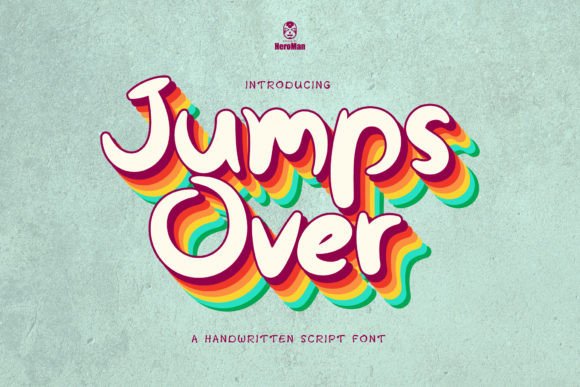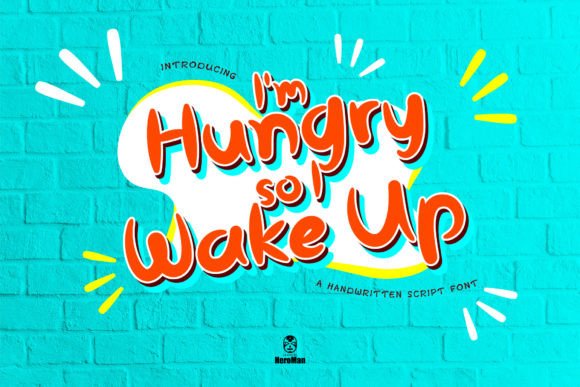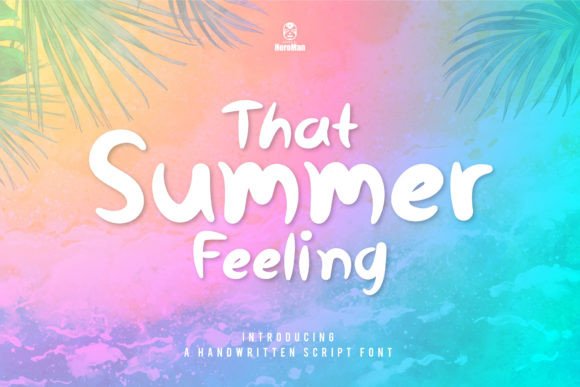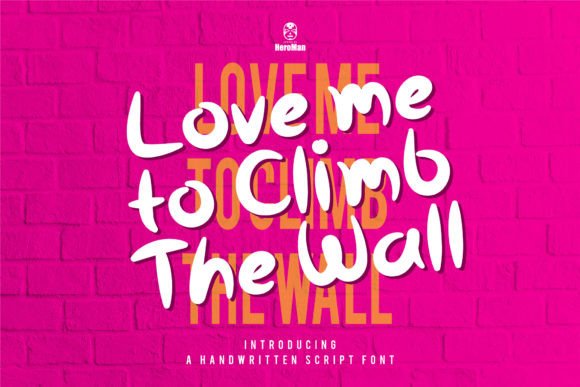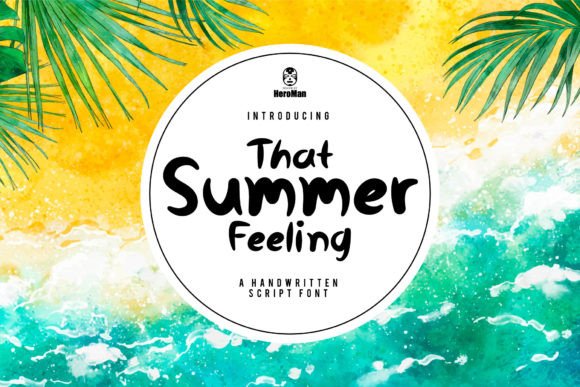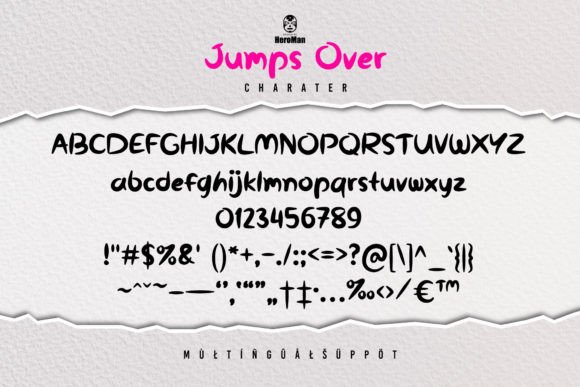
Introduction to Jumps over Font
Remember that moment when you finally found the perfect design element to elevate your creative project? The one that made everything fall into place and gave it that extra oomph? For designers, finding the right font can be a game-changer, and that’s exactly what Jumps over Font is all about.
With its authentic, handwritten look, this font adds a personal and realistic touch to any design. Whether you’re working on a freelance project or a personal passion project, Jumps over Font is a valuable resource that can help bring your vision to life.
Key Features of Jumps over Font
- High-quality, creative font design suitable for various design projects, including logos, branding, and advertising materials.
- Translucent background, allowing for easy integration with various design elements and backgrounds.
- Includes a comprehensive set of glyphs, ensuring effective communication and clarity in creative projects.
- Designed to be highly legible, making it an ideal choice for both digital and print-based design applications.
Honest Review: Jumps over Font
I recently stumbled upon Jumps over Font and I must say it’s been a great addition to my design arsenal. As a designer, I’m always on the lookout for high-quality fonts that can elevate my creative projects.
The font has a unique and quirky design that makes it perfect for eye-catching headings and titles. The transparent background feature allows for seamless integration with any design resource, making it a versatile choice for designers.
- ✨ Unique and quirky design that stands out from the crowd
- ✨ High-quality font that’s perfect for creative projects
- ✨ Transparent background feature for easy integration
- ⚠️ Limited font styles and variations, which might limit its use in more complex designs
- ⚠️ May not be suitable for formal or professional projects where a more traditional font is required
Overall, I’m impressed with Jumps over Font and I would definitely recommend it to designers looking for a unique and creative font for their projects. With its high-quality design and transparent background feature, it’s a valuable addition to any design resource library.
Tips for Getting the Most Out of Jumps over Font
Use Jumps over Font in creative projects, such as infographics, posters, and presentations, where a high-quality, unique font is needed. You can also use it as a design resource in free download websites, such as Creative Market or Font Squirrel.
Common Use Cases for Jumps over Font
Jumps over Font is commonly used in creative projects, such as:
- Posters
- Presentation slides